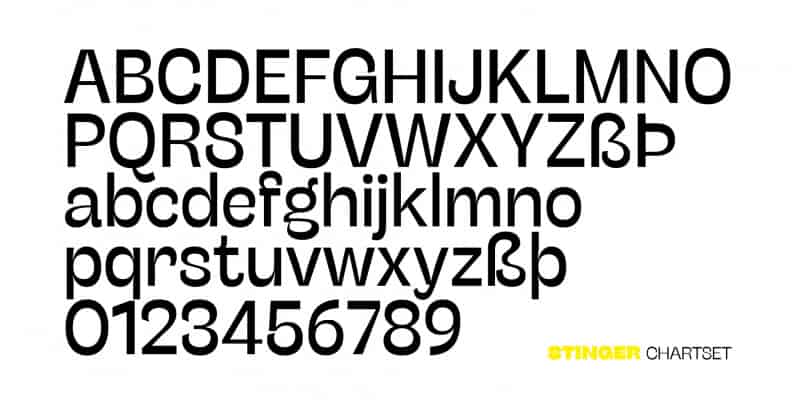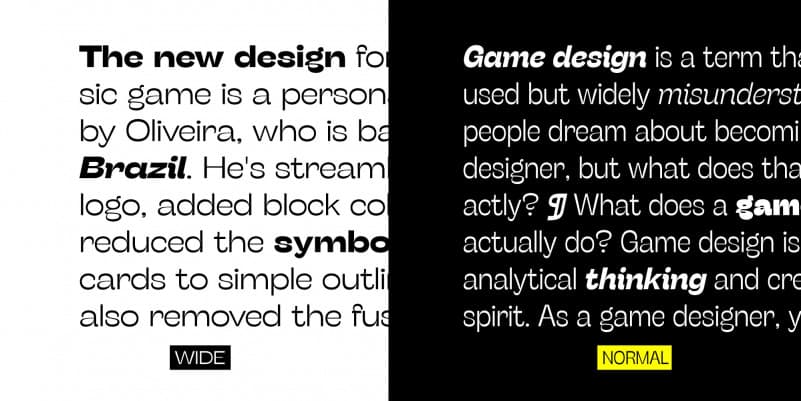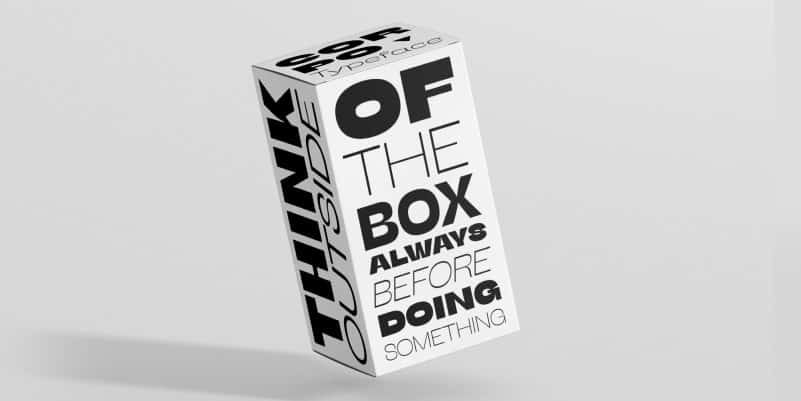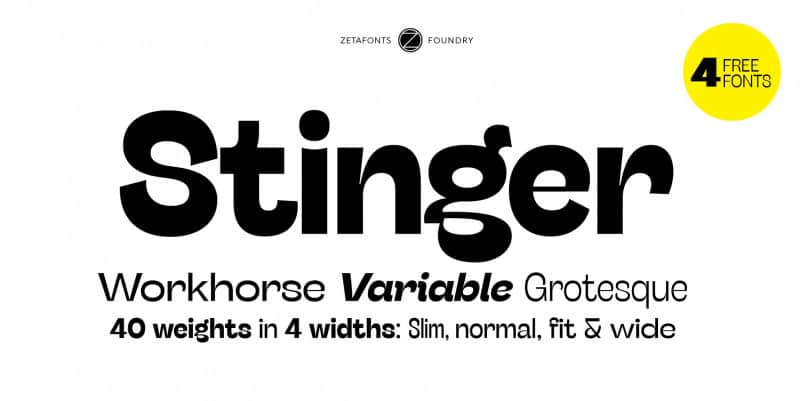
Stinger Sans Serif Font
Stinger Sans Serif Font is Fresh vintage sans serif typeface. This font is designed and shared by Zetafonts. Stinger is perfect for designing vintage logotypes, badges, labels, t-shirt prints, business cards, flyers, posters, ads, restaurant menus, signs, typography design, quotes and any graphic design, etc.